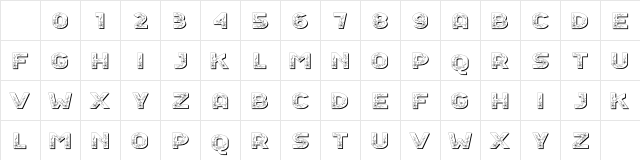
Complete Floral Season Shadow Regular glyph index. Displaying only characters natively supported by Floral Season Shadow Regular font.
Floral Season Shadow is built around its visual character rather than neutral utility - its distinctive forms are designed to make an impression at display sizes.
Font Pairing: Pair with a clean neutral sans-serif for body copy to let Floral Season Shadow's character lead without overwhelming the composition.
Pro Tip: Use Floral Season Shadow exclusively at display sizes - it was designed to be seen, not read at length. Let a neutral companion handle body copy.